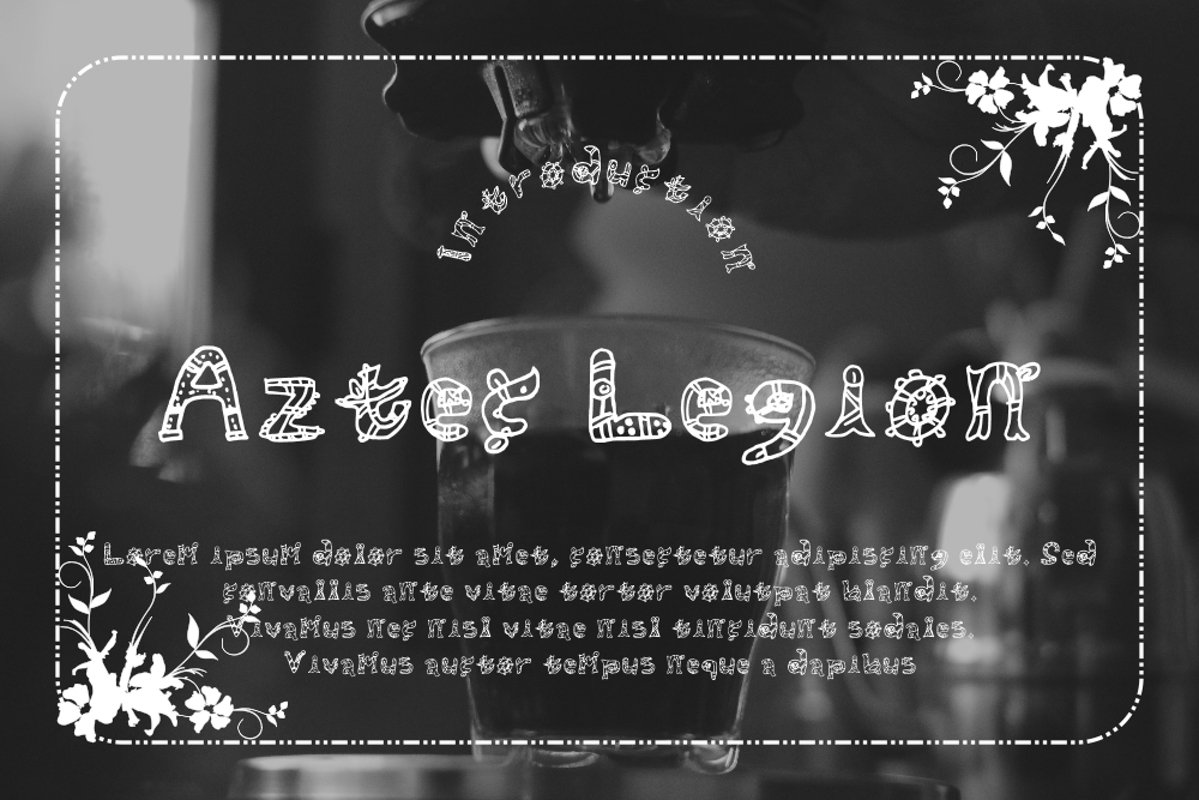
Aztec Legion
Aztec Legion Typeface is a vintage display type. It suitable for any vintage type needs and more Happy creating.Very suitable for you who do exploration